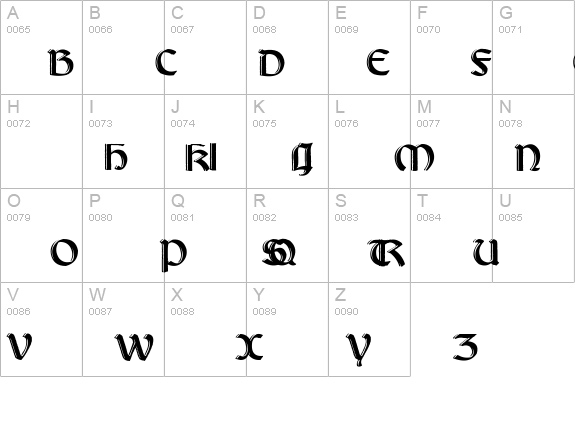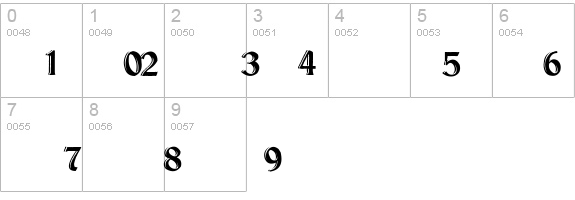
Dundalk_HandDrawn font is a charming and whimsical typeface that exudes a playful and handcrafted feel. Its unique hand-drawn style brings a touch of personality to any project, making it perfect for a wide range of creative applications. This font is free to download at FontsMarket.com, allowing designers and enthusiasts to easily access and use this delightful typeface in their designs. With its organic and imperfect lines, Dundalk_HandDrawn adds a warm and inviting touch to any project, whether it's for branding, packaging, invitations, or any other creative endeavor. Embrace the creativity and individuality of Dundalk_HandDrawn font and bring a touch of handmade charm to your designs today.